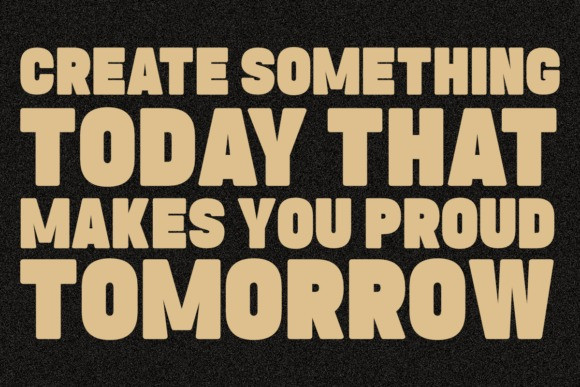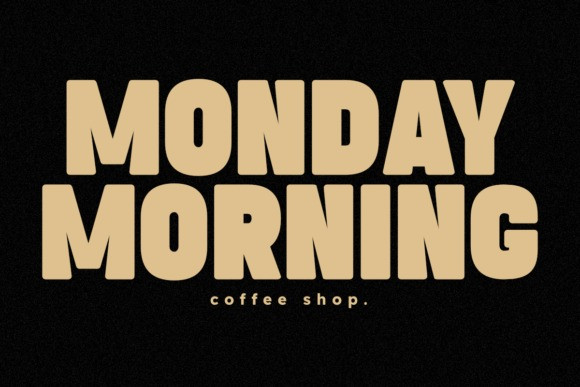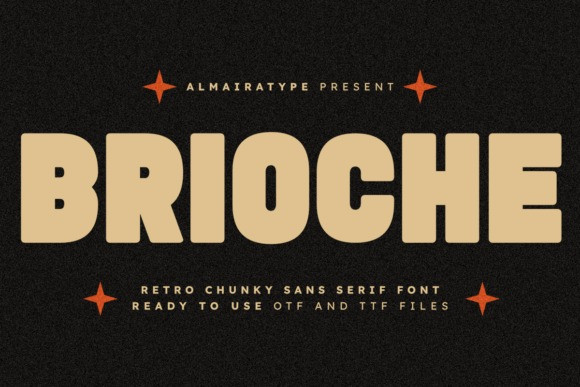
Brioche Font
Brioche Font is a bold retro chunky sans serif font uniquely designed to inject a playful and nostalgic vintage aesthetic into your contemporary creative assets. Featuring a thick weight, solid geometric structural balance, and smooth rounded contours, this typeface perfectly captures the retro essence of the 70s and 80s typography while delivering a highly professional digital finish. It stands out as an indispensable asset for graphic designers, independent clothing brands, custom apparel makers, passionate crafters, and Print on Demand (POD) entrepreneurs aiming to create high-converting merchandise. Whether you are establishing a bold brand identity, designing trendy streetwear t-shirts, curating standout product packaging, or producing eye-catching social media posters, Brioche ensures outstanding legibility and a distinct artistic edge. Its clean vector outlines make it fully compatible with popular craft cutting software and vinyl plotters like Cricut and Silhouette, guaranteeing an effortless cutting and weeding experience for stickers, mugs, and personalized DIY layouts. Elevate your commercial branding toolkits and artistic design projects with the inviting, powerful, and friendly presence of the Brioche typeface.